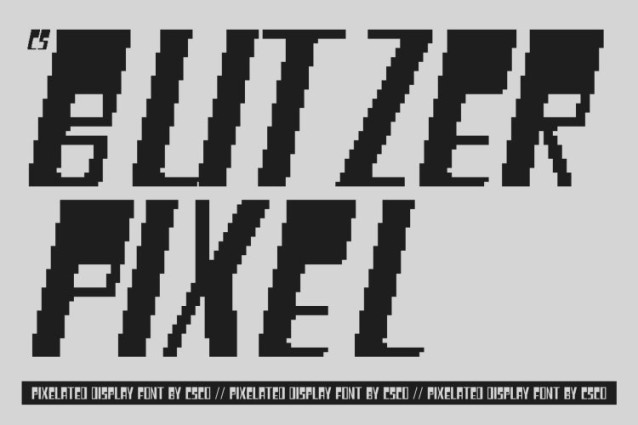
CS Blitzer Pixel Font
CS Blitzer Pixel Font This is an experimental sans serif font that merges bold geometry with a brutalist pixel-inspired expression. Featuring condensed proportions and reverse contrast, this font breaks conventional rules while maintaining a strong, deliberate structure. Its pixel character enhances the futuristic feel, creating a typeface that feels digital, daring, and unapologetically bold.
Unconventional Geometry with Brutalist Character
Built from sharp geometric foundations and intentional distortions, this font reflects the raw, architectural spirit of brutalism. Each letterform feels engineered rather than decorative, giving the font a powerful and industrial personality. The reverse contrast adds visual tension, while the pixel style reinforces a modern, tech-driven aesthetic.
High-Impact Style for Editorial and Futuristic Visuals
This font excels in editorials, experimental posters, album covers, and forward-looking branding. Its condensed shape and striking rhythm demand attention, making it ideal for headlines and display use. The pixel elements add a digital edge that feels perfect for futuristic themes and bold visual storytelling.
Designed for Visionary and Experimental Creators
More than just a typeface, this font is a statement of creative confidence. It’s made for designers who want to challenge norms and explore unconventional form. Perfect for avant-garde projects, this font delivers a strong, innovative voice that feels modern, fearless, and forward-thinking.